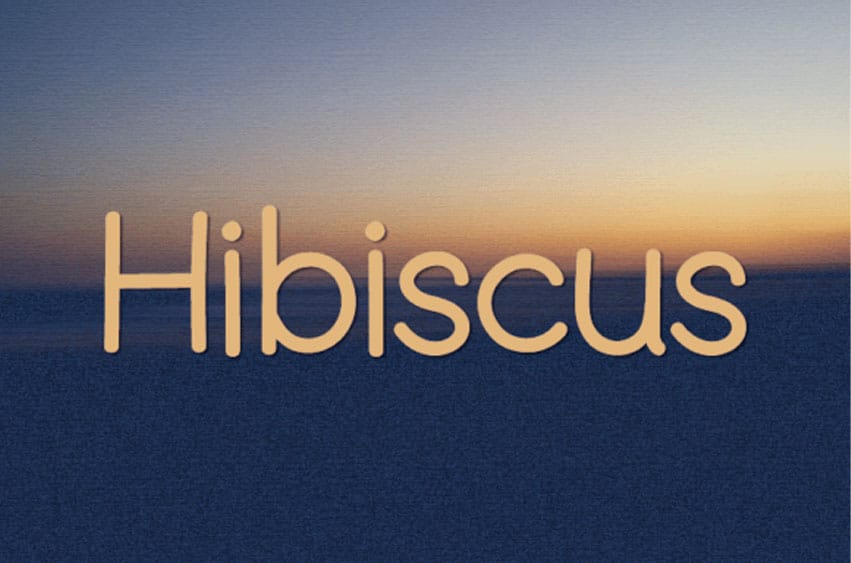
Hibiscus Sans Font is a natural sans serif font without changing a single node in each character’s indentation, which makes this font very interesting and unique.
Perfect for quotes, notes, tees, and any product design.